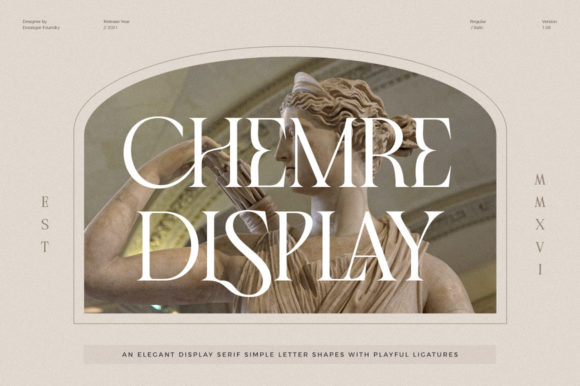
Introducing Chemre Font, the serif font that will leave you spellbound with its timeless elegance and unconventional charm. Step into a world of captivating designs, where your creativity takes center stage.
Chemre's essence lies in its striking contrast between thick and thin strokes, creating a visually captivating rhythm that dances across your designs. Each letterform is meticulously crafted to evoke a sense of sophistication and allure, ensuring your projects exude an air of distinction.
Unleash the power of Chemre's versatility. Its graceful curves and sharp angles seamlessly adapt to a myriad of design styles, from classic and timeless to modern and edgy. Whether you're crafting logos, branding materials, invitations, or social media graphics, Chemre effortlessly elevates your creations, imbuing them with a touch of sophistication and charm.
With Chemre, you'll experience the joy of effortless creativity. Its intuitive design and PUA encoding make accessing glyphs and swashes a breeze, allowing you to effortlessly add intricate details and flourishes to your designs.
Embrace Chemre Font, the ultimate serif font that will transform your creative vision into stunning realities. Let your designs blossom with timeless elegance and captivating allure. Experience the Chemre difference today!